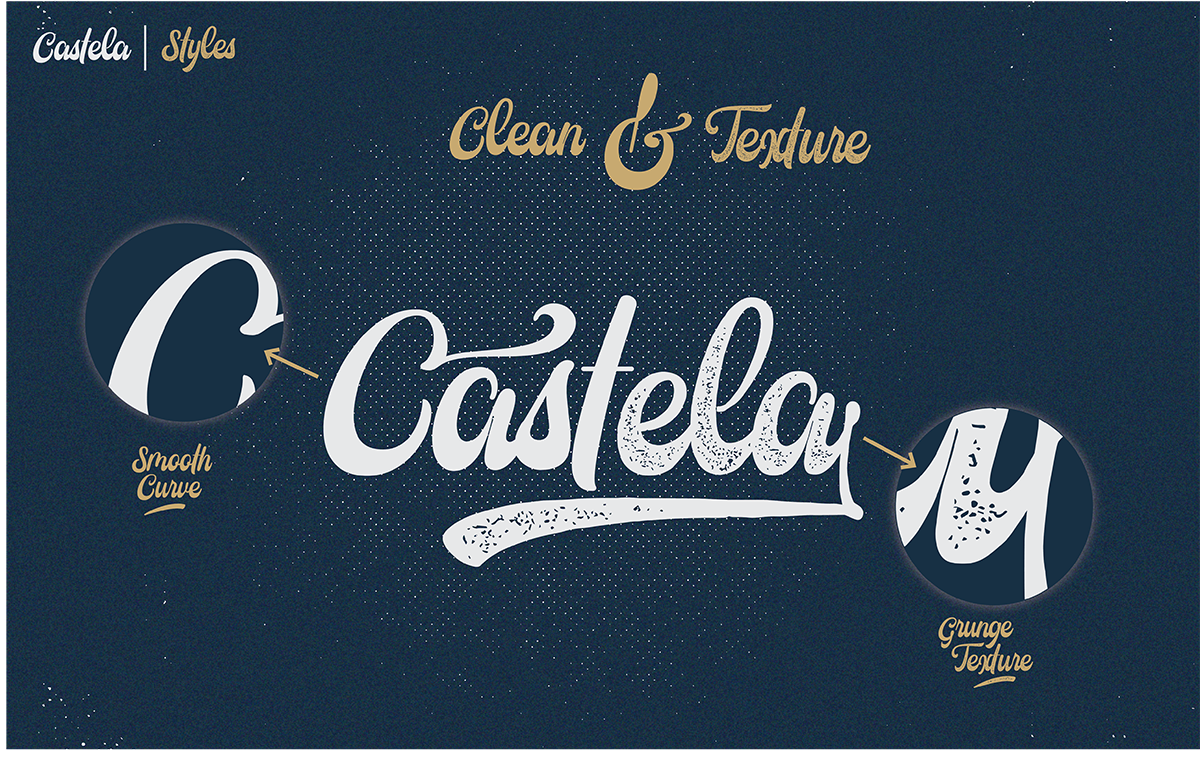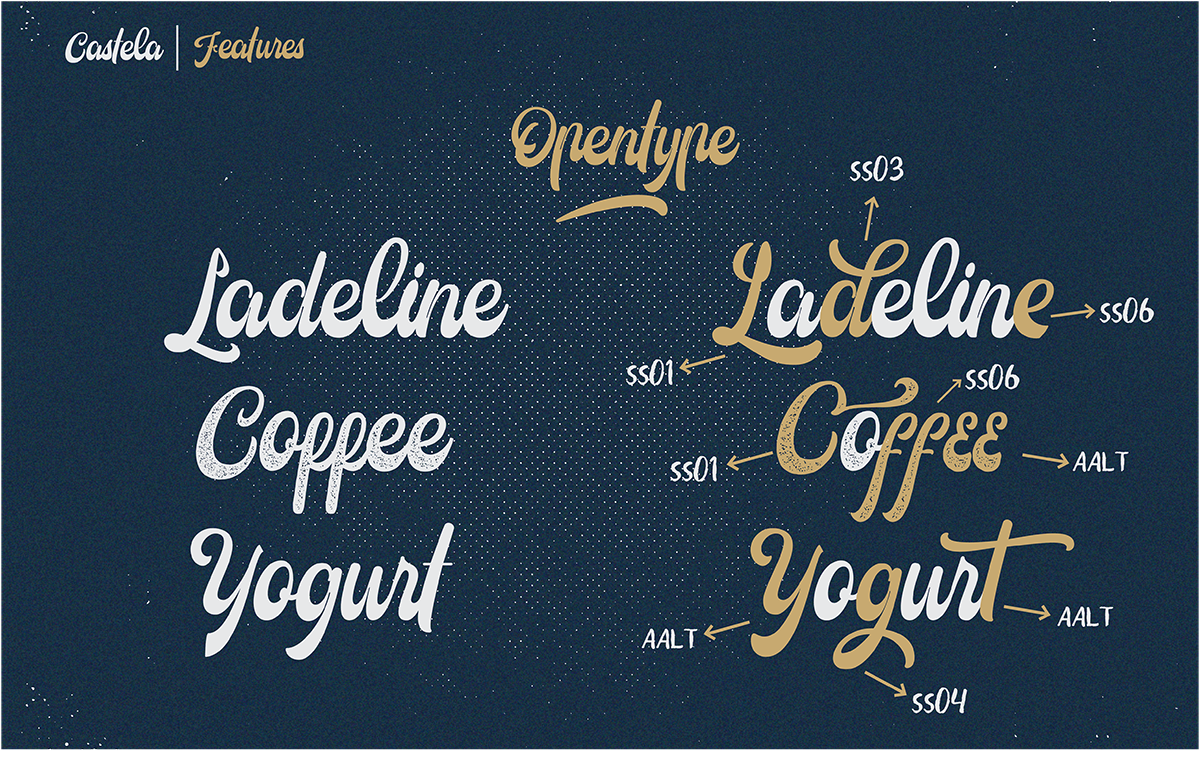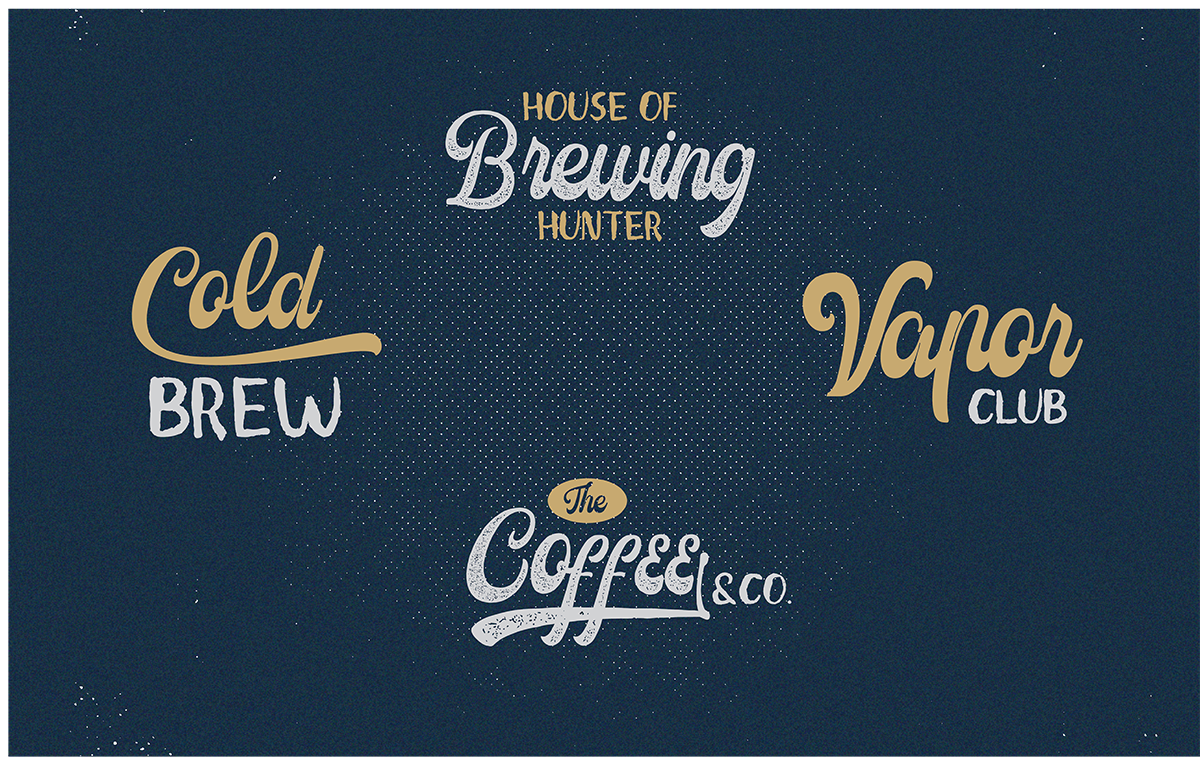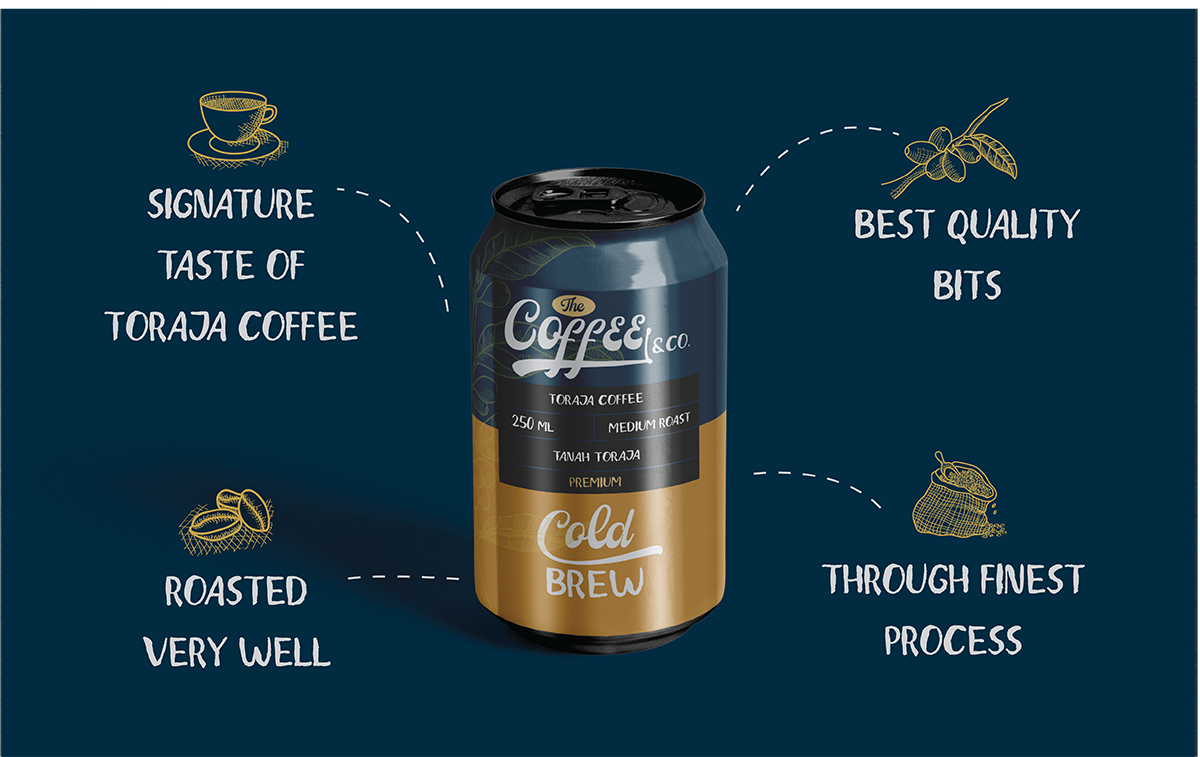
Castela Free Font
Let us introduce you to Castela Free Font is script fonts that created with fluffy looks, this font inspired by both modern and vintage packaging. Castela is created carefully to have a look that makes you feel something. This free typeface was designed by talented Angin Studio. If you like it don’t forget to check out the full version.